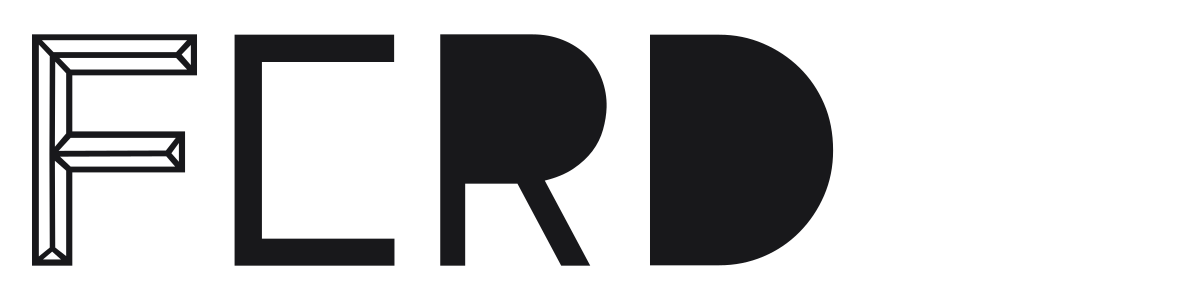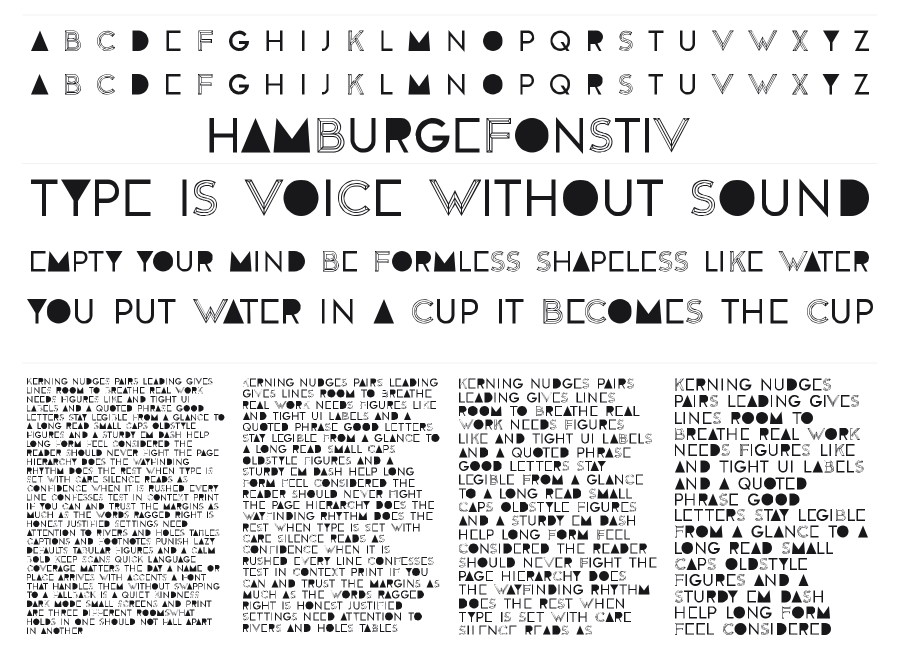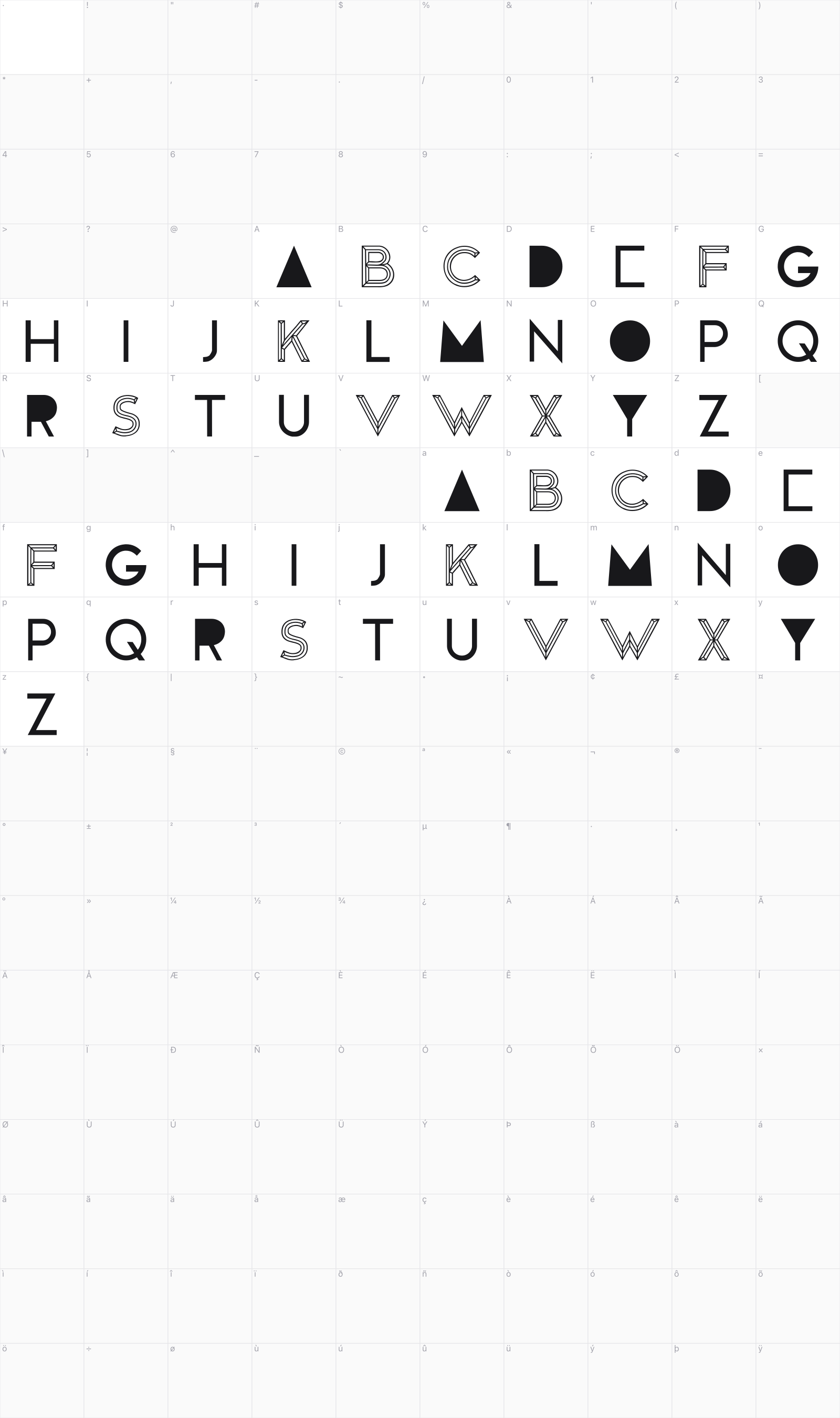
Ferd
Ferd is a display font built on the idea that no two characters need to look the same. Each letter uses a different visual treatment — solid fill, inline stripes, open outline, or pure geometric shape — turning any word into a typographic composition. The effect is bold, puzzling, and unmistakably deliberate.